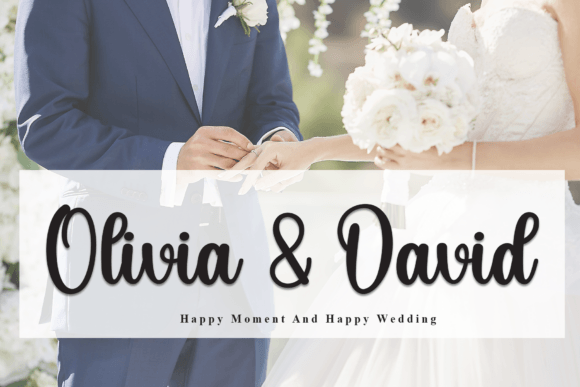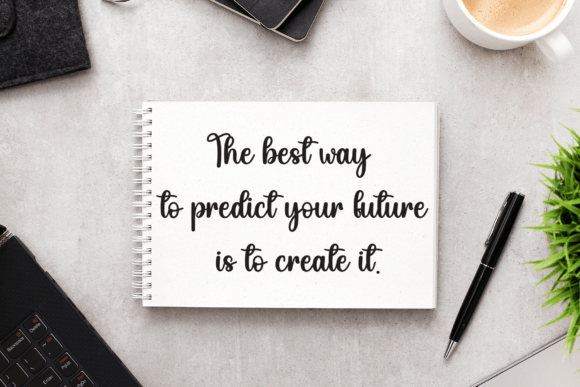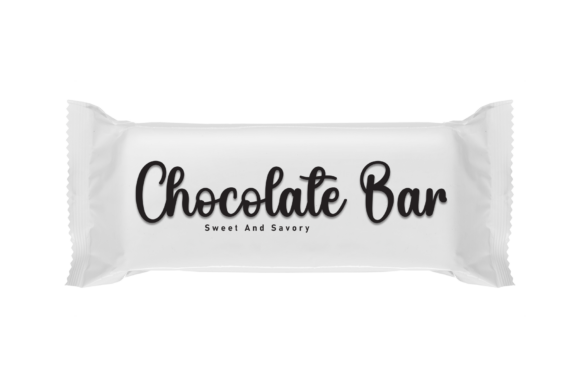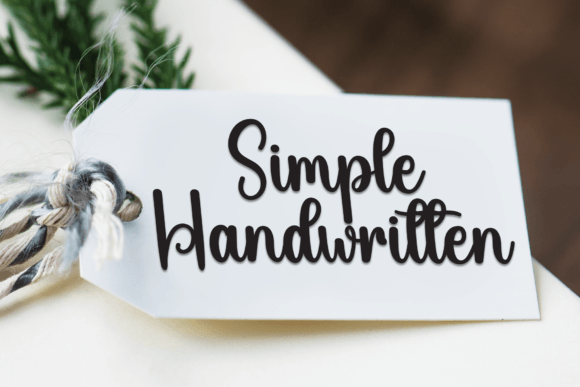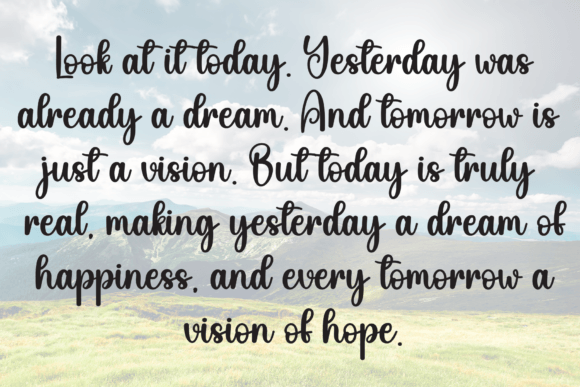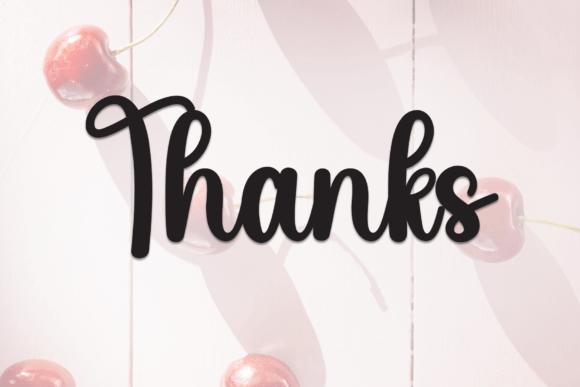
Introducing Back Cherry Font: The Sweetest Addition to Your Design Collection
Are you tired of using the same old fonts in your designs? Look no further! We’re excited to introduce Back Cherry Font, a temptingly sweet and endearing handwritten display font that’s perfect for adding a playful touch to your paper and digital designs. With its charming personality and catchy outlook, this font is sure to become your new go-to for all your creative projects.
The Whimsical World of Back Cherry Font
Back Cherry Font is a handwritten display font that’s designed to bring a touch of whimsy to your designs. Its unique and playful style is perfect for designers and crafters who want to add a personal touch to their work. Whether you’re creating wedding invitations, designing cards, or working on a digital project, this font is sure to delight.
One of the standout features of Back Cherry Font is its charming personality. The font’s playful and fun outlook makes it perfect for projects that require a lighthearted and carefree touch. Imagine using this font to create a wedding invitation that’s as sweet as the couple getting married. The font’s catchy and fun style will set the tone for a joyful and celebratory occasion.
Back Cherry Font is a versatile font that’s perfect for designers and crafters alike. Whether you’re working on a paper project or a digital design, this font is sure to add a touch of personality to your work. Here are just a few ways you can use Back Cherry Font:
- Digital designs, such as social media graphics and blog posts
- Paper crafts, such as scrapbooking and journaling
- Signs and posters
Why Choose Back Cherry Font?
So why choose Back Cherry Font over other fonts? Here are just a few reasons why this font stands out:
- Unique and playful style: Back Cherry Font has a one-of-a-kind style that’s sure to make your designs stand out.
- Easy to read: Despite its playful style, Back Cherry Font is easy to read and understand, making it perfect for body text and headlines.
- Versatile: This font can be used for a wide range of projects, from paper crafts to digital designs.
- High-quality: Back Cherry Font is a high-quality font that’s designed to deliver exceptional results.
Tips for Using Back Cherry Font
Here are a few tips for getting the most out of Back Cherry Font:
- Use it as a headline font: Back Cherry Font is perfect for headlines and titles, where its playful style can really shine.
- Pair it with a simple font: For body text, pair Back Cherry Font with a simple font to create a striking contrast.
- Experiment with colors: Back Cherry Font looks great in a range of colors, so don’t be afraid to experiment and find the perfect hue for your design.
In conclusion, Back Cherry Font is a sweet and endearing handwritten display font that’s perfect for designers and crafters who want to add a playful touch to their work. With its charming personality and catchy outlook, this font is sure to become your new go-to for all your creative projects. So why wait? Download Back Cherry Font today and start creating your own whimsical designs!
Whether you’re a seasoned designer or a crafty DIY enthusiast, Back Cherry Font is sure to delight. Its unique and playful style makes it perfect for a wide range of projects, from wedding invitations to digital designs. So go ahead, get creative, and show the world what you can do with Back Cherry Font!